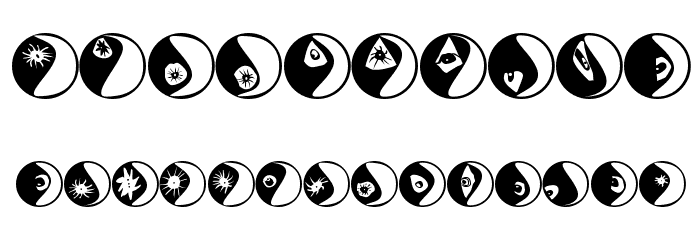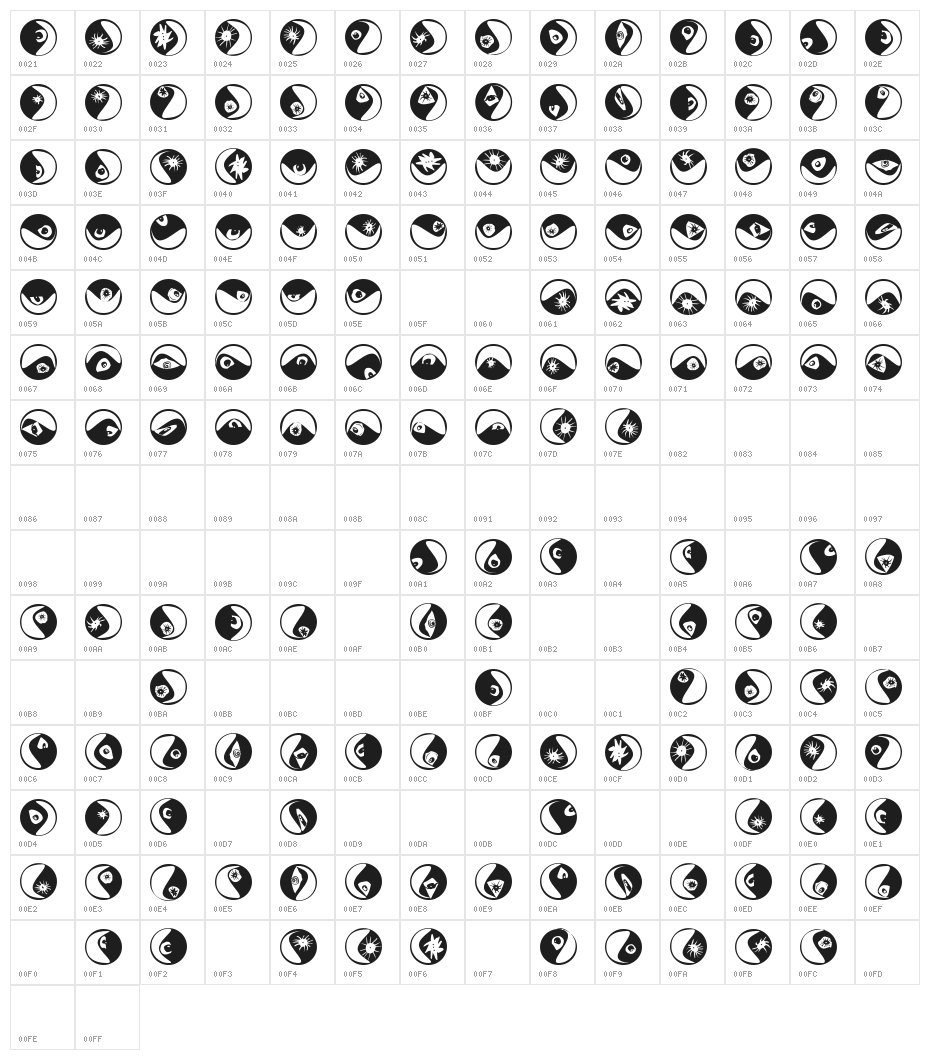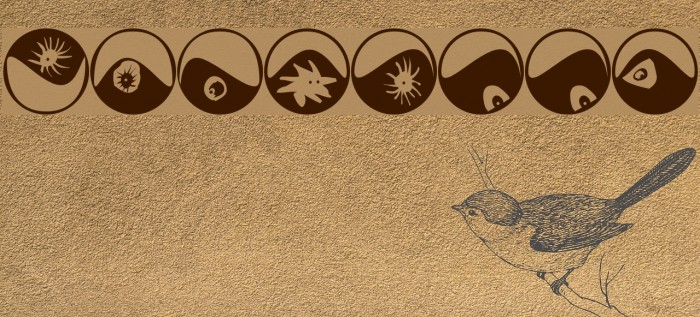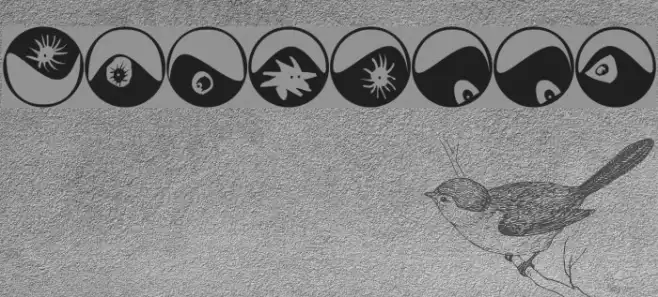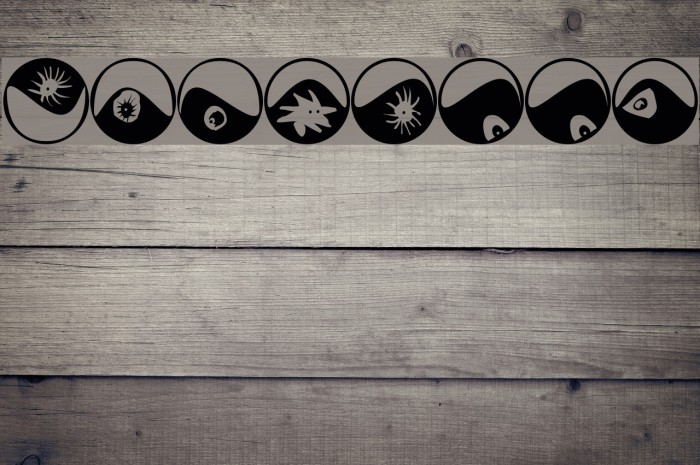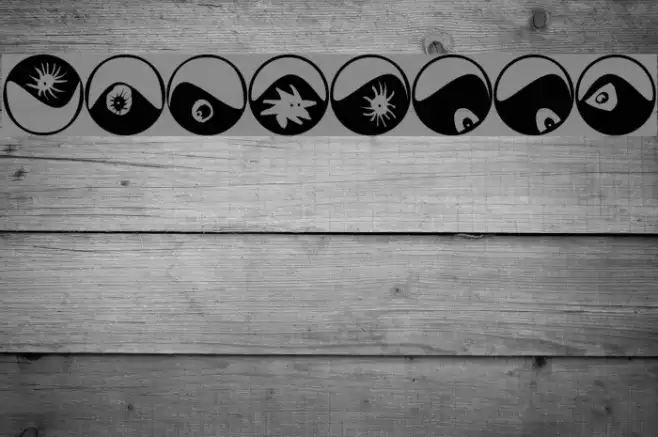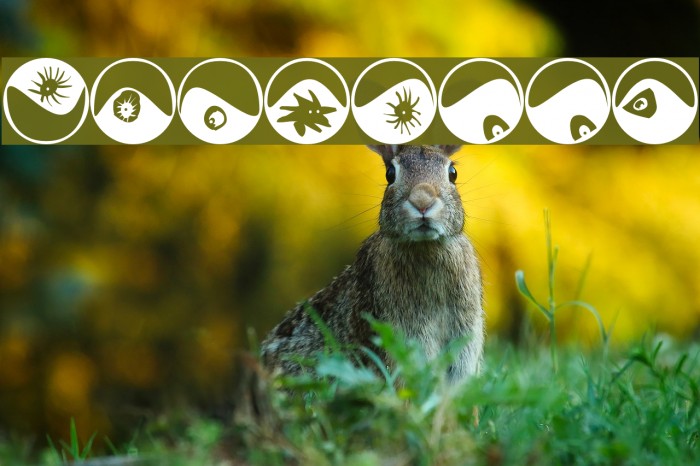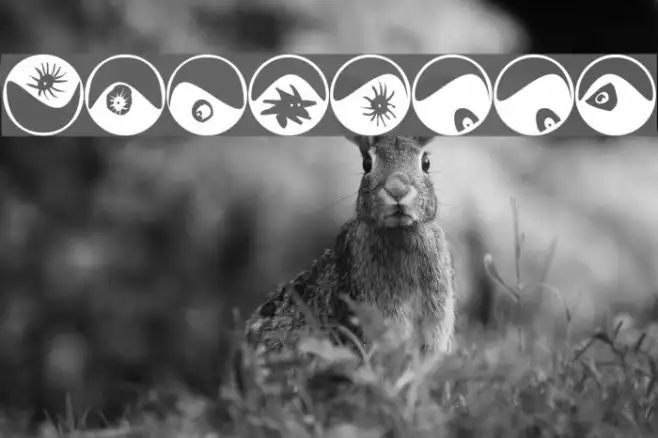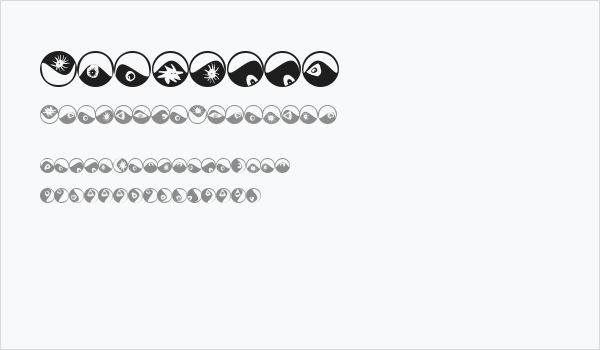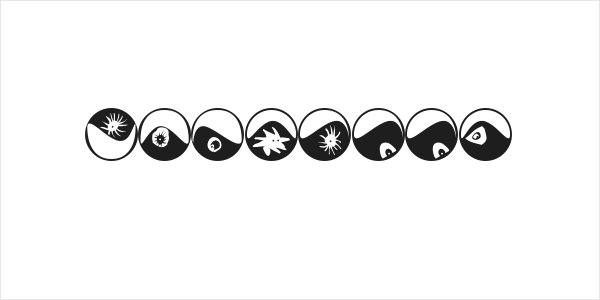
Eyeballs Font
Eyeballs Description
A highly decorative and abstract font where each character is represented by a circular shape containing stylized eyeball or yin-yang inspired motifs, with strong contrast between black and white areas and playful, surreal details.
| Overall Style | Decorative, Surreal, Abstract |
| Use Case | Logos, Headlines, Posters, Artistic projects |
| Proposed Projects | Posters, album covers, Halloween or horror-themed graphics, branding for creative industries, art installations. |